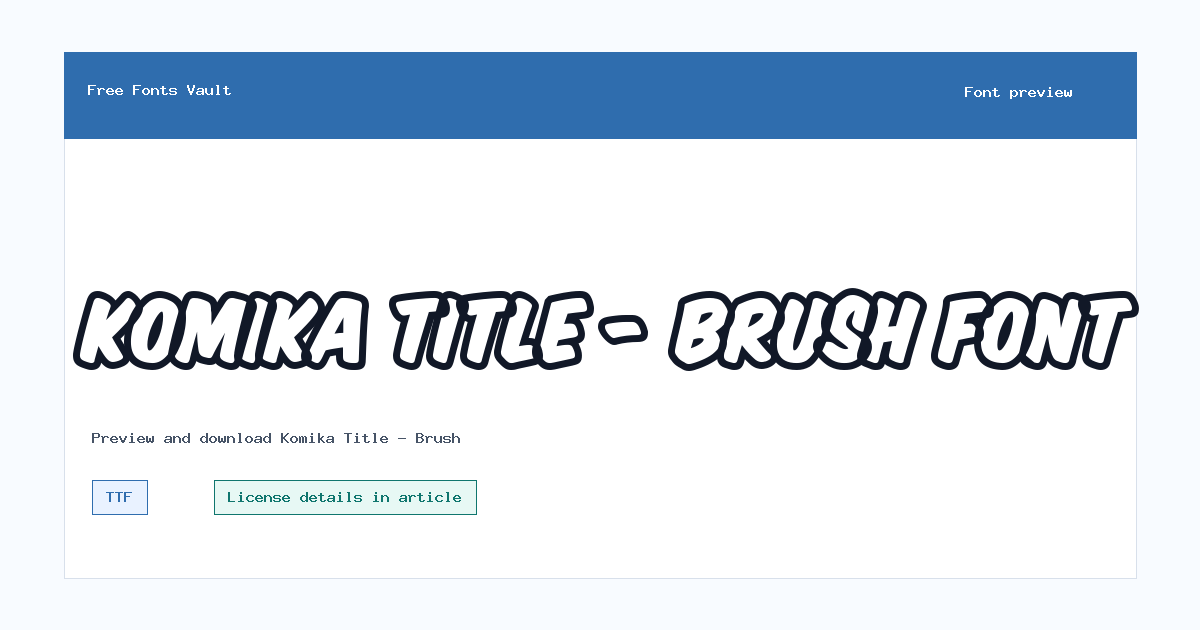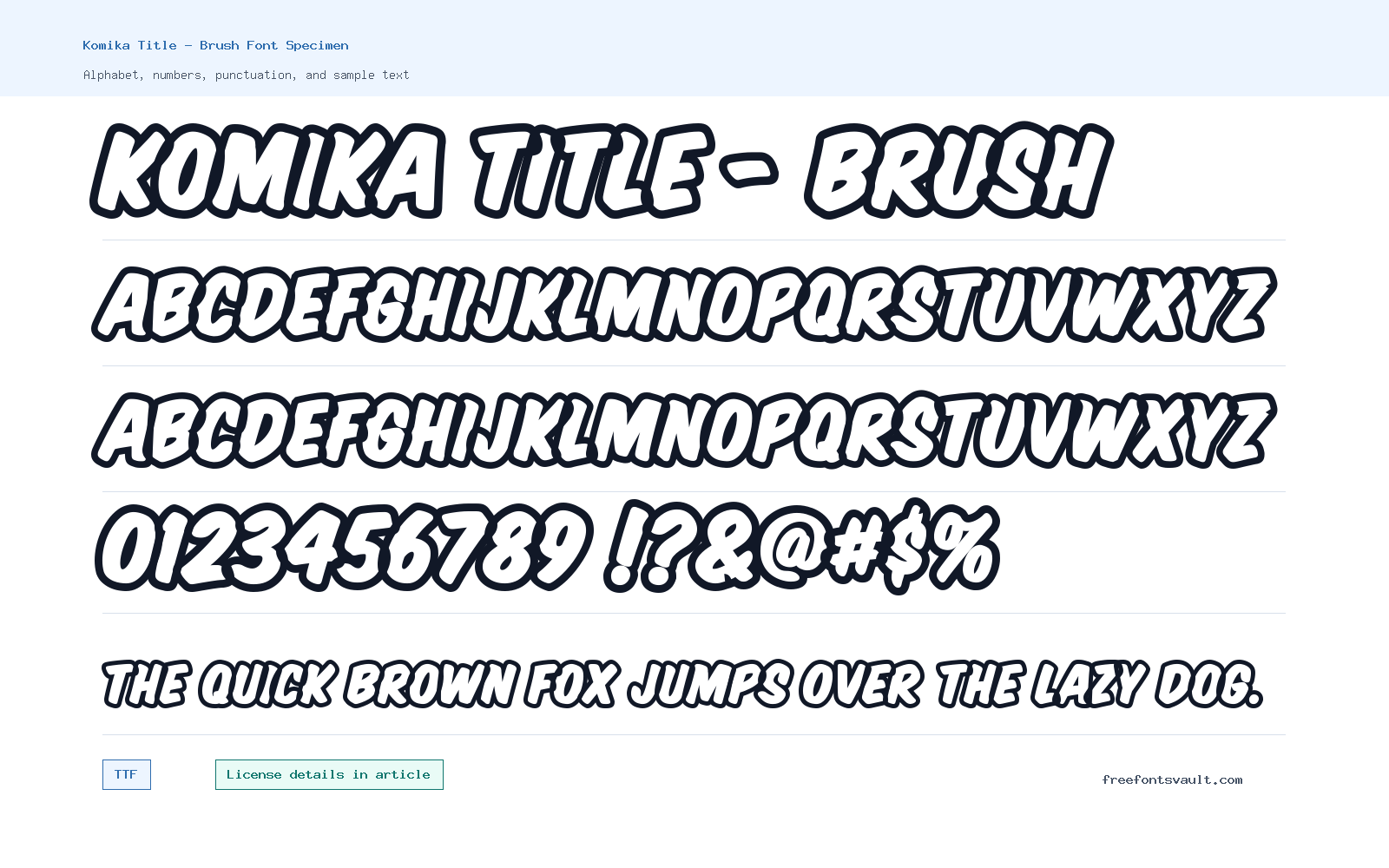
Komika Title - Brush
- Designer WolfBainX & Apostrophe
Komika Title – Brush font.
Komika Title – Brush is a bold comic display font from the Komika Title family. It uses energetic, brush-like all-caps lettering that works best when you need a loud title, short caption, or playful graphic headline.
About Komika Title – Brush Font
Komika Title – Brush belongs to the wider Komika Title series by WolfBainX and Apostrophe. The family is built around comic-style title lettering, and the Brush version adds a hand-painted feel while keeping the shapes heavy and easy to spot. It is a TrueType font file named KOMTITBR.ttf, so it should be simple to install on most desktop systems that support TTF fonts.
Use it for short, high-impact text rather than long reading copy. It fits comic covers, action-panel captions, sticker designs, gaming thumbnails, posters, zines, playful headers, and social graphics. Because the style is strong, test your exact words in the preview first, especially if you plan to use tight spacing, outlines, shadows, or bright backgrounds. It can pair well with a plain sans serif for body text, letting Komika Title – Brush handle the headline while the supporting text stays readable.
- Brush-style comic display lettering with a bold all-caps look
- Part of the Komika Title family, which includes several related title styles
- Useful for short display text such as comic titles, captions, posters, and thumbnails
- Comic book titles and action-panel lettering
- Sticker art, playful posters, and zine covers
- YouTube thumbnails, gaming graphics, and social media headers
- Short all-caps display text that needs a hand-drawn comic mood
The font metadata and type references connect Komika Title – Brush with WolfBainX and Apostrophe/Apostrophic Labs. Some libraries also list Vigilante Typeface Corporation for the Komika Title family.
Keep it large and brief. Try it for words like titles, sound effects, labels, and punchy captions. For paragraphs, menus, or small UI text, pair it with a cleaner font so the message remains easy to read.
What kind of font is Komika Title – Brush?
It is a comic display font with bold brush-style lettering, best suited for titles, captions, posters, and other short text.
Is Komika Title – Brush good for body text?
No. It is better for short display text. Use a simpler sans serif or serif font for paragraphs and keep Komika Title – Brush for the main title or accent words.
Who designed Komika Title – Brush?
The font is credited in metadata and type references to WolfBainX and Apostrophe/Apostrophic Labs, with some libraries also naming Vigilante Typeface Corporation for the family.